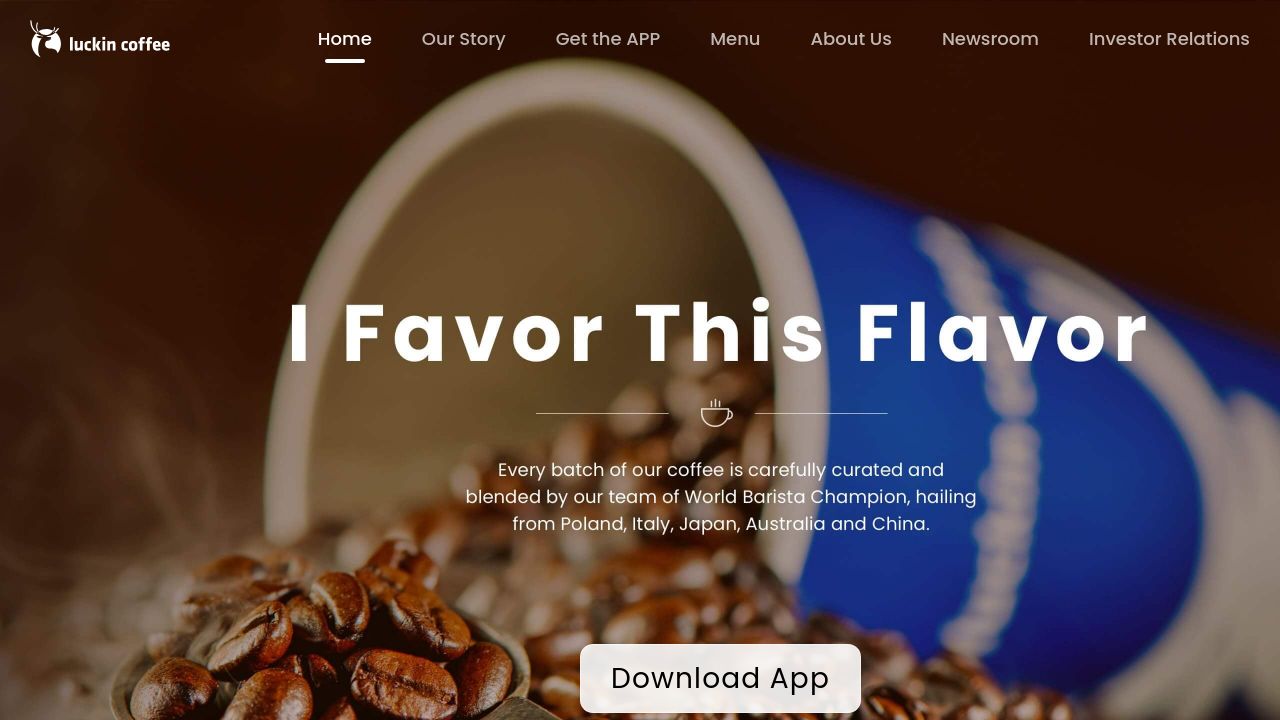
Luckin Coffee
Luckincoffee.com uses DIN Condensed, Poppins Regular, Poppins-Bold, Poppins-Light and Poppins Medium as its main typefaces. 7 fonts detected, last checked Sep 21, 2026.
Luckin Coffee, a leader in the coffee industry, captivates its audience with a unique blend of premium Arabica coffee. The site utilizes a variety of fonts, including Poppins and DIN Condensed, which reflect the brand's emphasis on quality and craftsmanship. Poppins in various weights enhances readability and offers a friendly yet sophisticated vibe, while the custom swiper-icons add a playful touch, making the overall visual identity inviting and engaging for coffee enthusiasts.
Luckin Coffee primarily uses the Poppins font family, including styles like Poppins-Regular, Poppins-Bold, and Poppins-SemiBold, along with DIN Condensed.
The Poppins font family offers a more rounded and approachable feel compared to other sans-serif fonts, making it suitable for brands aiming to connect with their audience in a friendly way.
Luckin Coffee employs several styles of Poppins, including Regular, Bold, Light, Medium, and SemiBold, allowing for a versatile typographic hierarchy throughout the site.